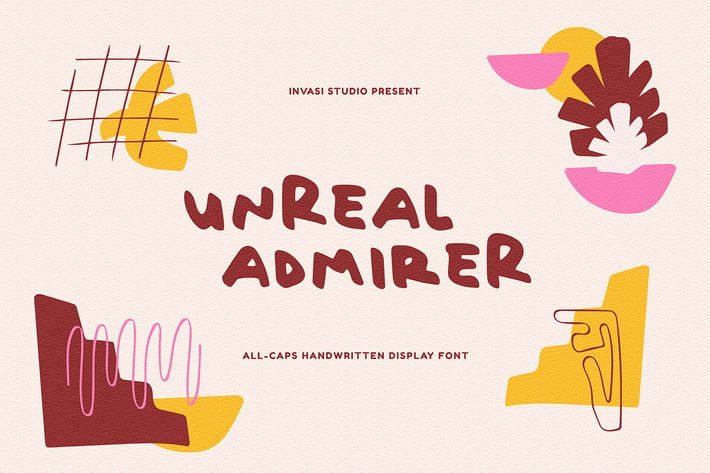
Unreal Admirer | Display Font
Introduction of our new Display Font. An Unreal Admirer is an All-caps display font with a Brush style font, special for your Display or Headline Design, which puts a bold on your projects and will inspire you to create something unique or playful design.
Unreal Admirer Font will help you to create special and touching typographical designs for your display quote projects, It is perfect for headings, flyers, greeting cards, product packaging, book cover, quotes, logotype, album covers.